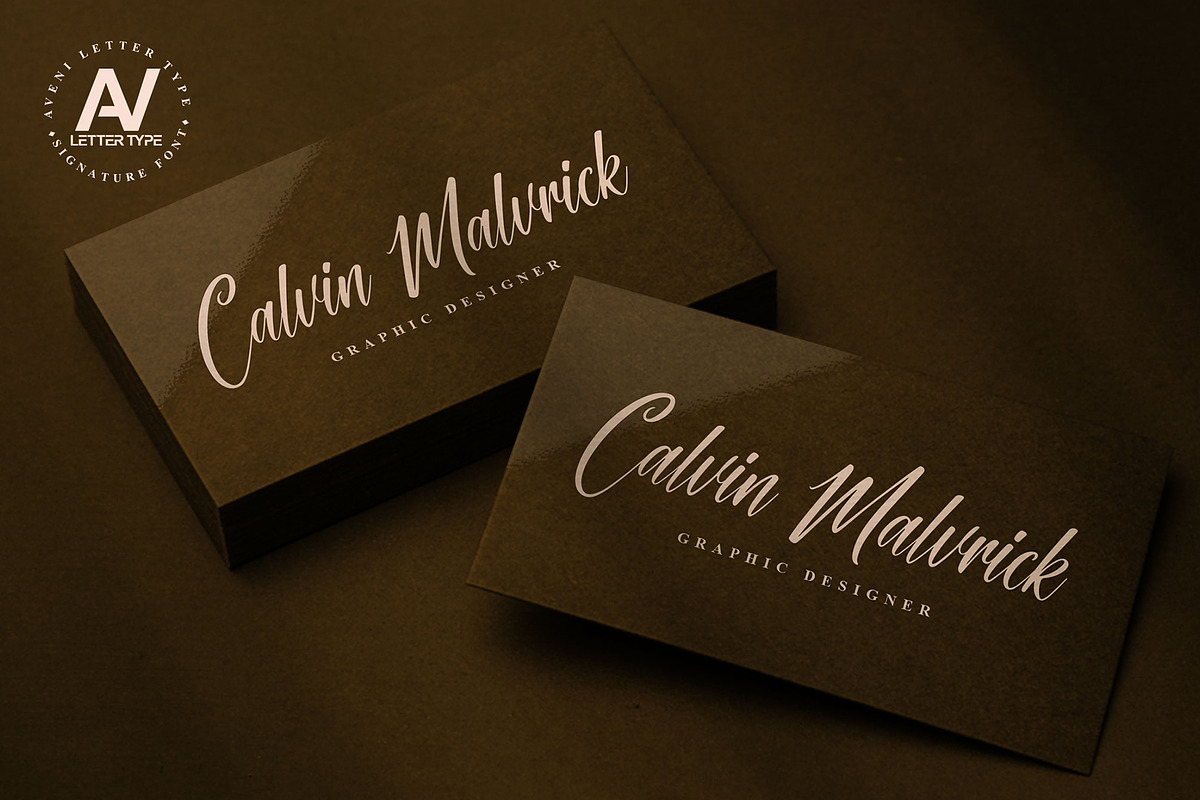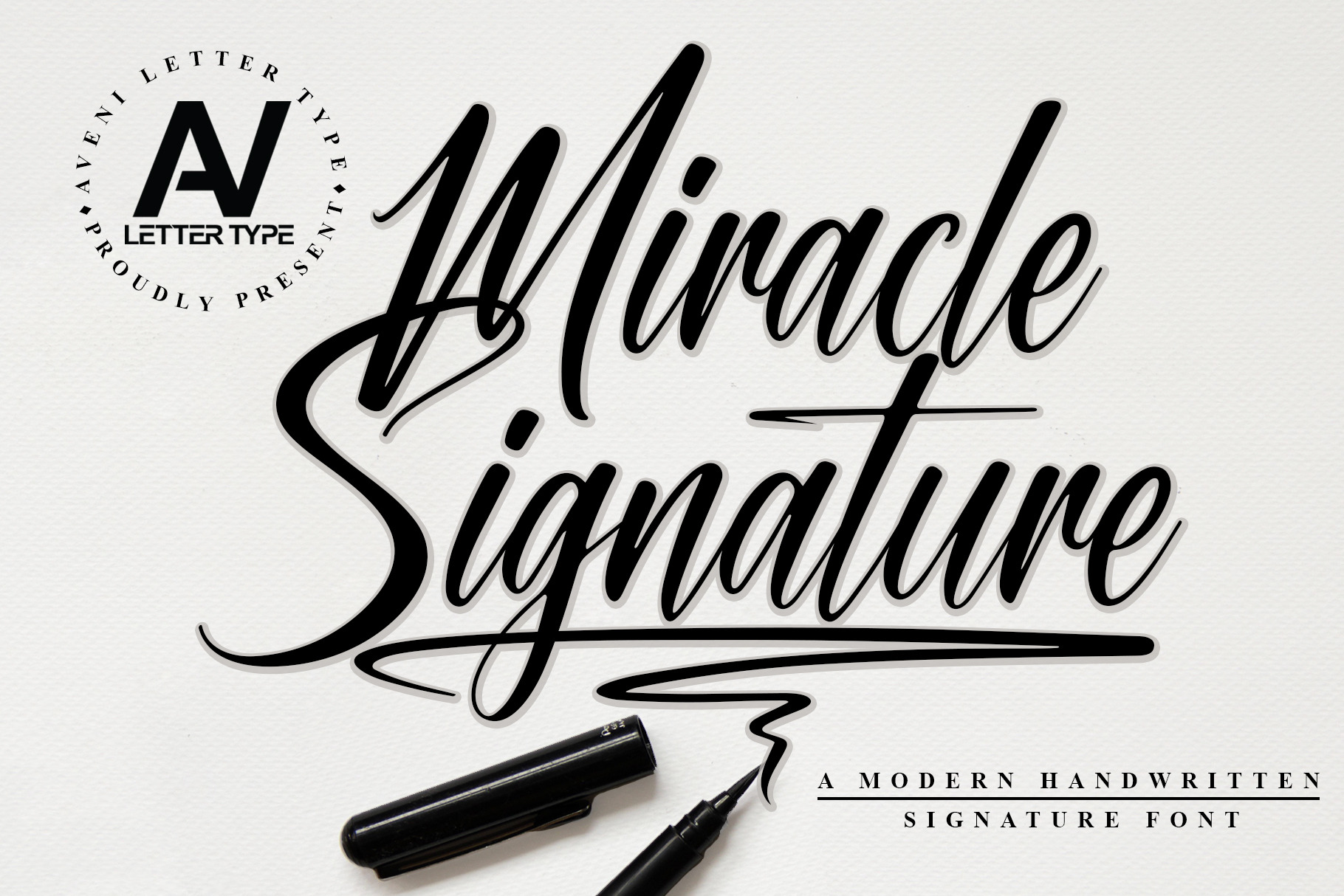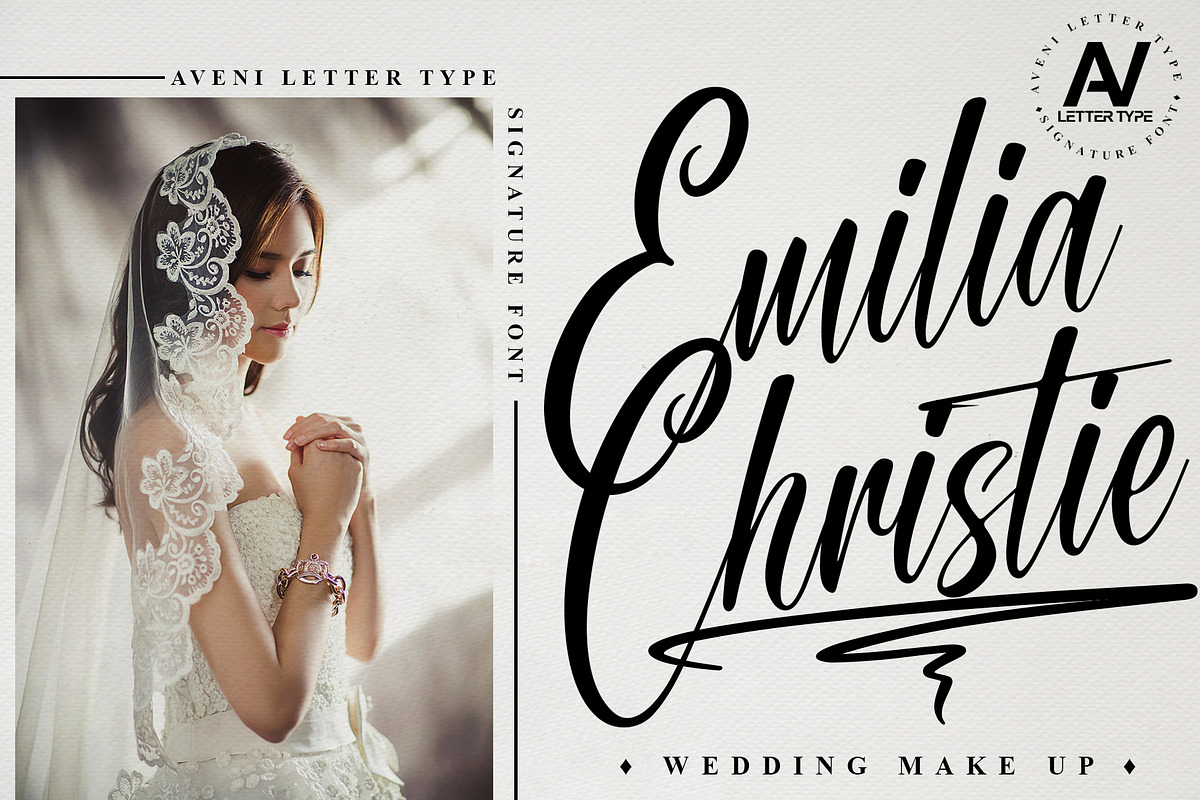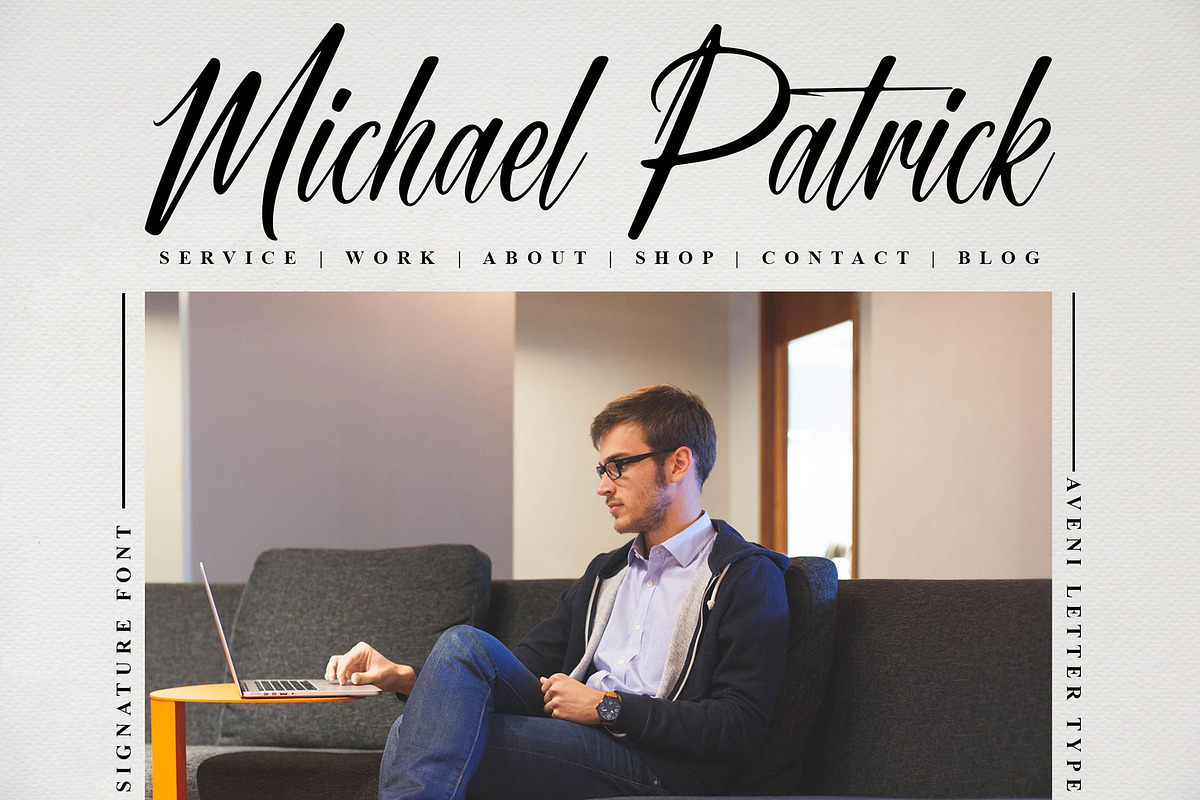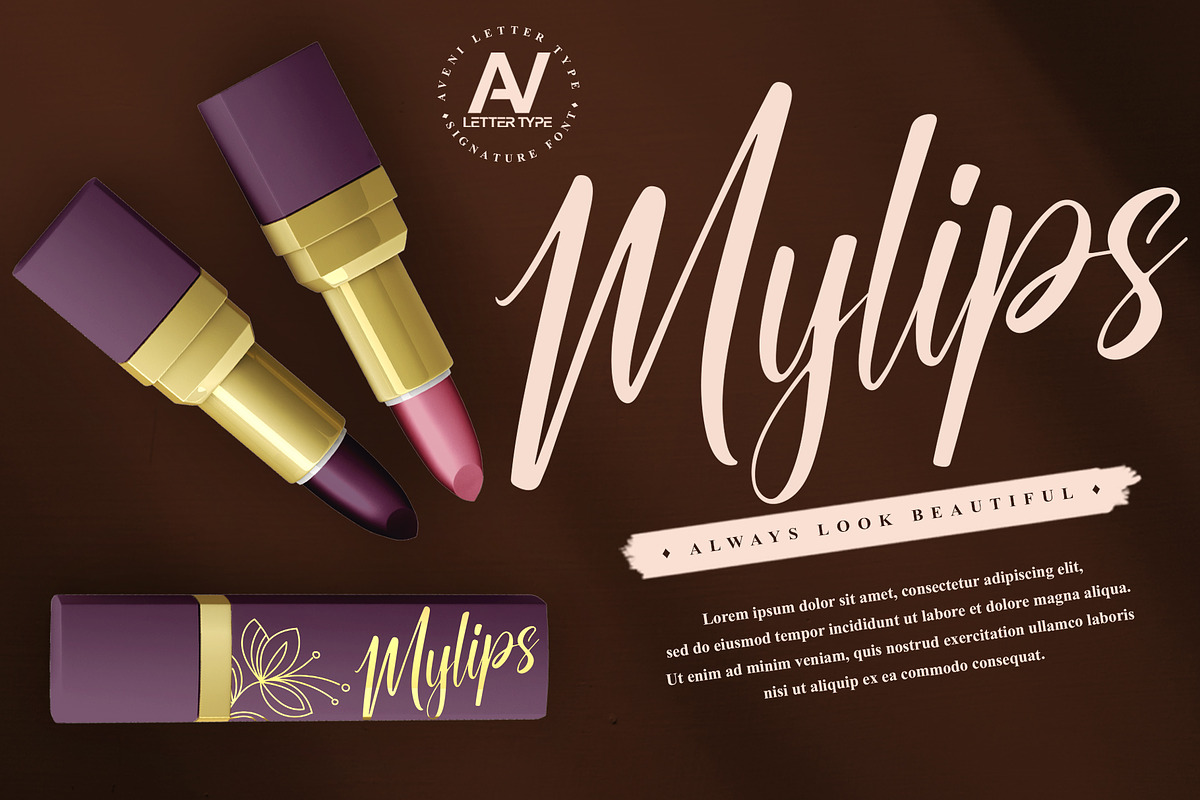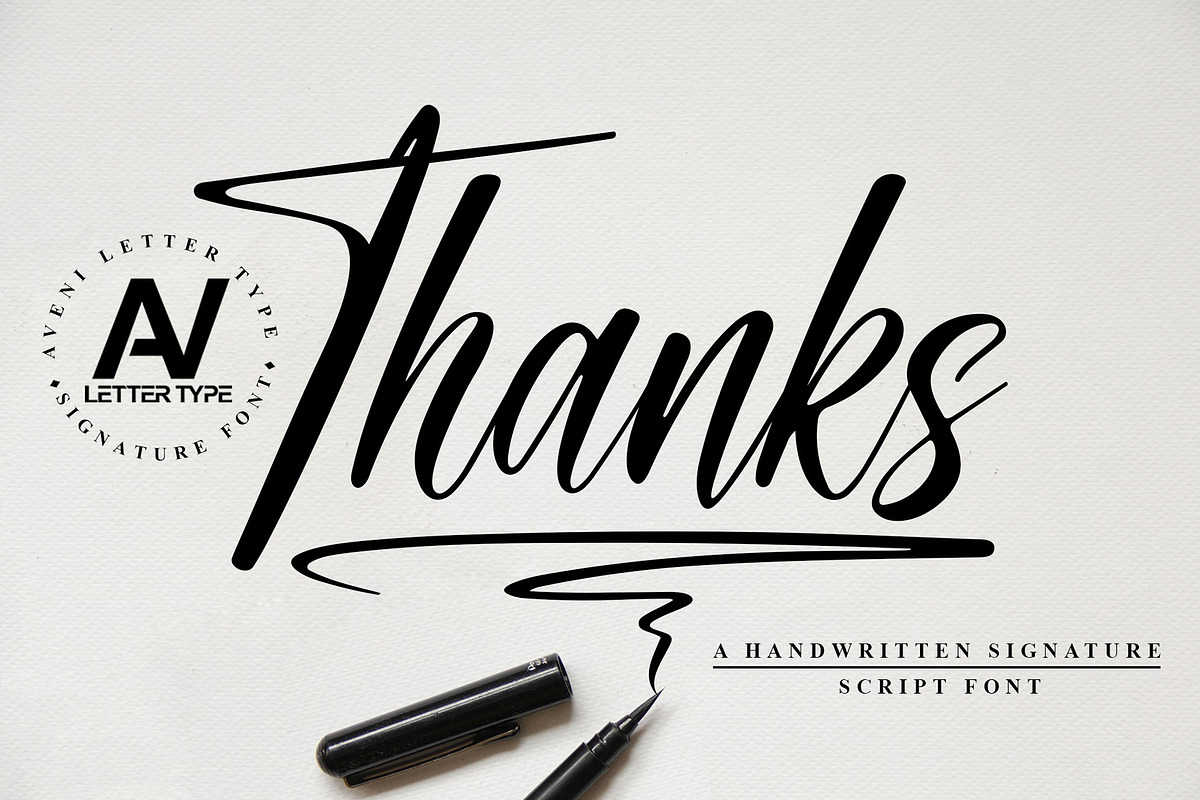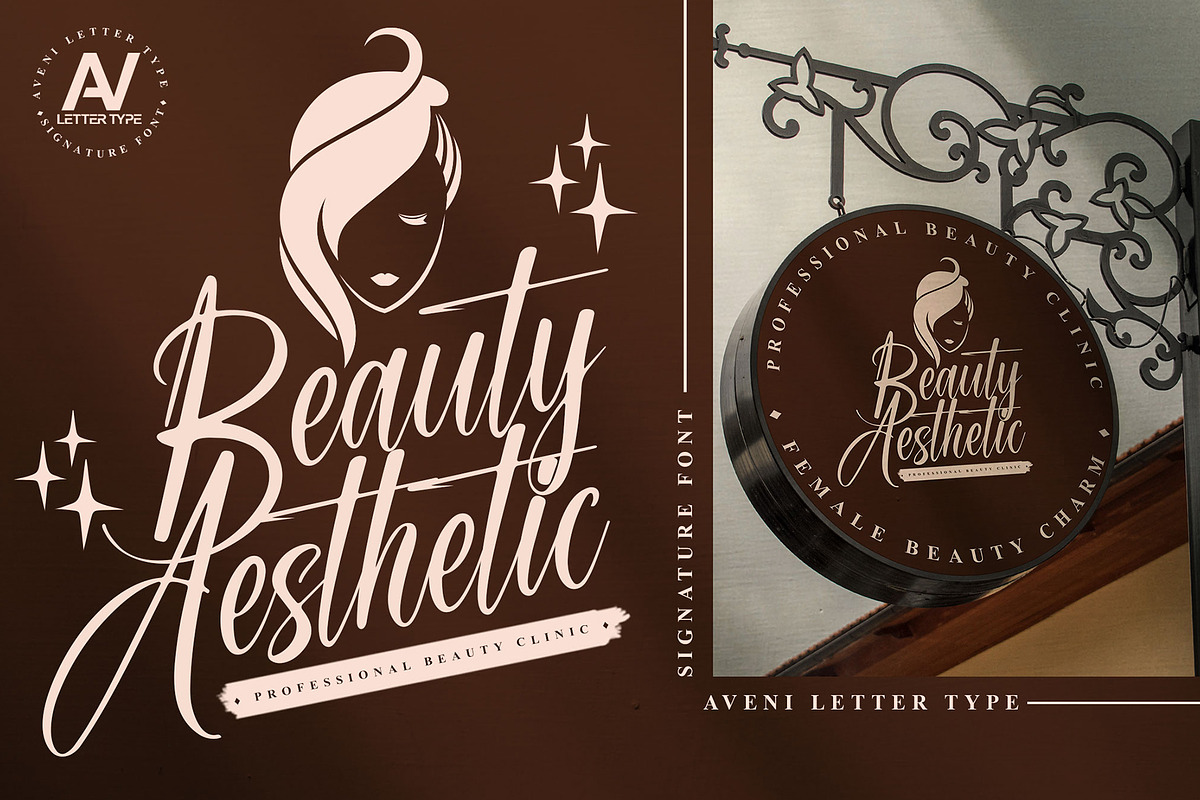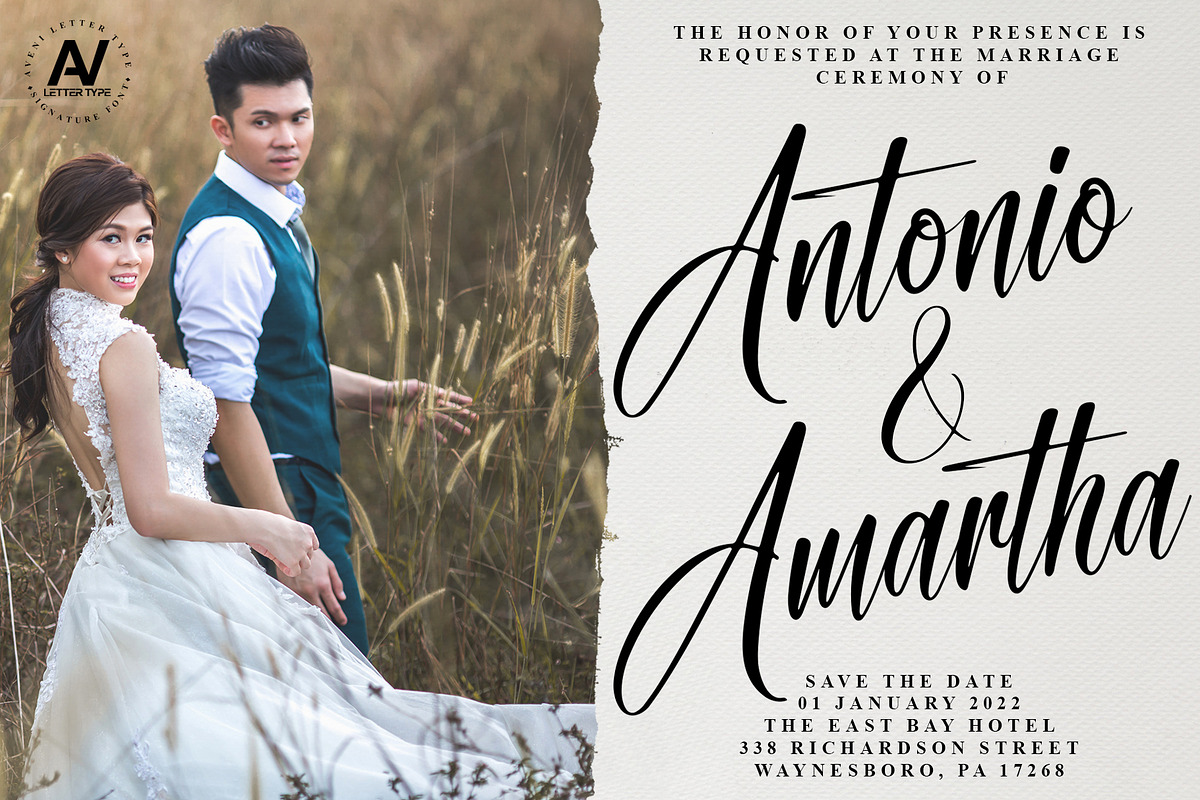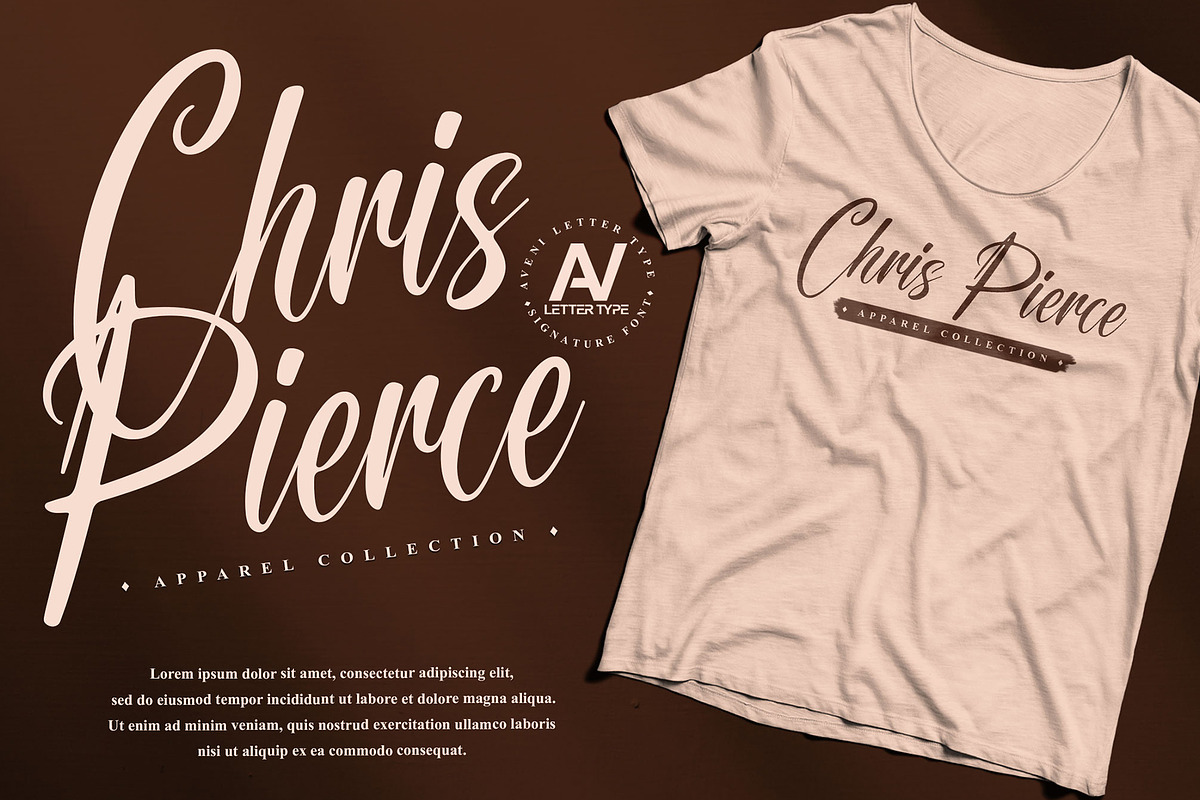
Miracle Signature | Handwritten Font
Hi Guys, my name is Miracle Signature, I was born with a handwritten font but still a signature style is elegant and has very neat kerning. This font will look great in many projects, for example, you can use it for business cards, cosmetic branding, tote bag branding, wedding invitations, product packaging, headers, posters, merchandise, apparel branding, social media & greeting cards, and so much more!
Here I give a little way to use swashes in the Miracle Signature font:
Use the code listed on the thumbnail, such as SW001, to create a swash.
Example: SignatureSW001
Font Feature :
- Ligature, and Swashes